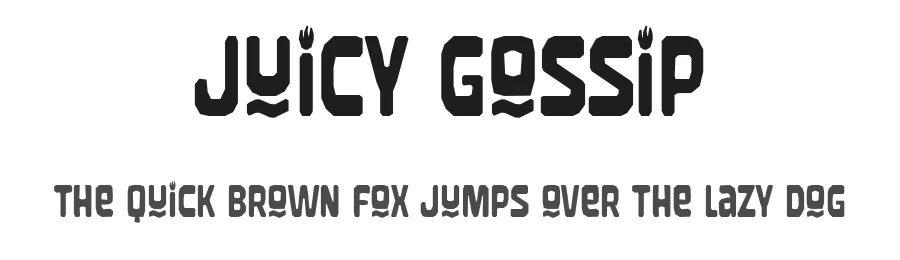
About Typodika Font
Typodika is a decorative font designed by abasiry.com. It includes 88 glyphs, a regular weight, OTF (CFF) format, and 98 languages. Typodika is free to download; check the license details on this page before commercial use. Decorative fonts like Typodika work best for logos, posters, packaging, and standout headlines.
| Designer | Mostafa El Abasiry |
Typodika Font is a decorative font that shines as a display or heading face. Pair it with a clean sans-serif or serif font for body text β the contrast creates a clear hierarchy while the two styles stay balanced and easy to read.
Typodika Font
by abasiry.com
Typodika Font is a decorative typeface by abasiry.com, ideal for logos, invitations, branding, and creative projects.